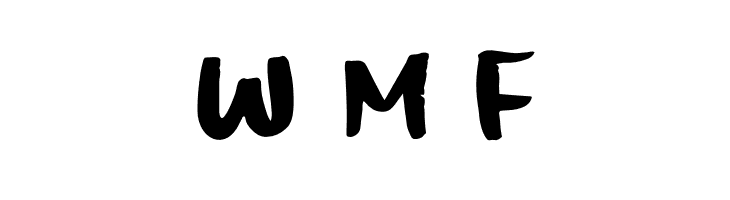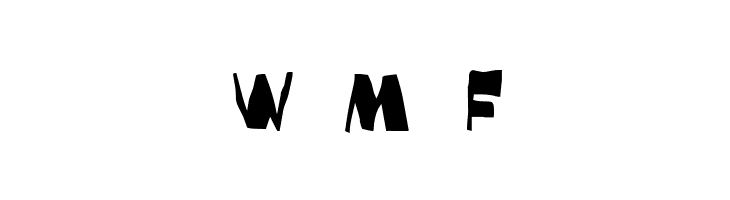
An elegant script font with high contrast and flowing, cursive style.
A bold, dynamic brush-style font with energetic strokes and uneven edges.
A bold, geometric font with high contrast and angular shapes.
A bold, geometric font with a modern and playful style, featuring condensed characters.
A bold, geometric, and italic font with a futuristic style.
A bold, geometric 3D italic font with a dynamic and playful style.
A bold, geometric, and italicized font with a futuristic flair.
A bold, geometric font with angular shapes and a modern, futuristic style.
A bold, geometric font with a halftone effect, perfect for modern and artistic designs.
A bold, striped, italicized font with a futuristic and dynamic style.
A bold, italicized font with a retro halftone effect and geometric shapes.
A bold, expressive handwritten font with playful curves and thick strokes.
A refined script font with elegant, flowing cursive letterforms.
A classic and elegant script font with flowing, connected letterforms and medium contrast.
A classic and elegant script font with ornate uppercase and smooth lowercase letters.
A bold, rugged font with a hand-crafted, graffiti-like style.
A playful, stone-carved style font with bold outlines and rugged texture.
A bold, jagged font with a rugged, graffiti-like appearance.
A bold, dynamic font with a playful, hand-painted style.
A textured, distressed font with a chaotic, edgy style.
A bold, futuristic font with a three-dimensional outline and geometric shapes.
A bold, futuristic font with slanted, geometric characters.
A bold, outlined font with a playful, retro style.
A bold, 3D block-style font with a retro, pixelated design.
A playful, bubble-like font with bold, rounded characters and outlined edges.
A playful, hand-drawn outline font with a whimsical and artistic style.
A bold, geometric font with a futuristic, digital aesthetic.
A bold, geometric font with a digital, futuristic style.
A bold, playful, and irregular font with a retro comic book style.
A distressed, grunge-style font with a chaotic typewriter aesthetic.
A quirky, hand-drawn font with elongated, irregular strokes.
A bold, graffiti-inspired font with a dynamic, hand-drawn style.
A playful, casual handwritten font with an informal, friendly style.
A playful collection of expressive character icons with bold outlines.